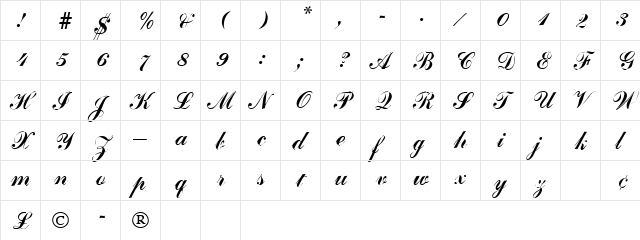
ADHEREA Regular
Design Context for ADHEREA Typeface
ADHEREA offers clean, dependable letterforms without strong stylistic allegiance, making it a practical choice for designers who need flexibility.
Pro Tip: Pair ADHEREA with a font of contrasting weight or personality to build a more expressive typographic hierarchy.